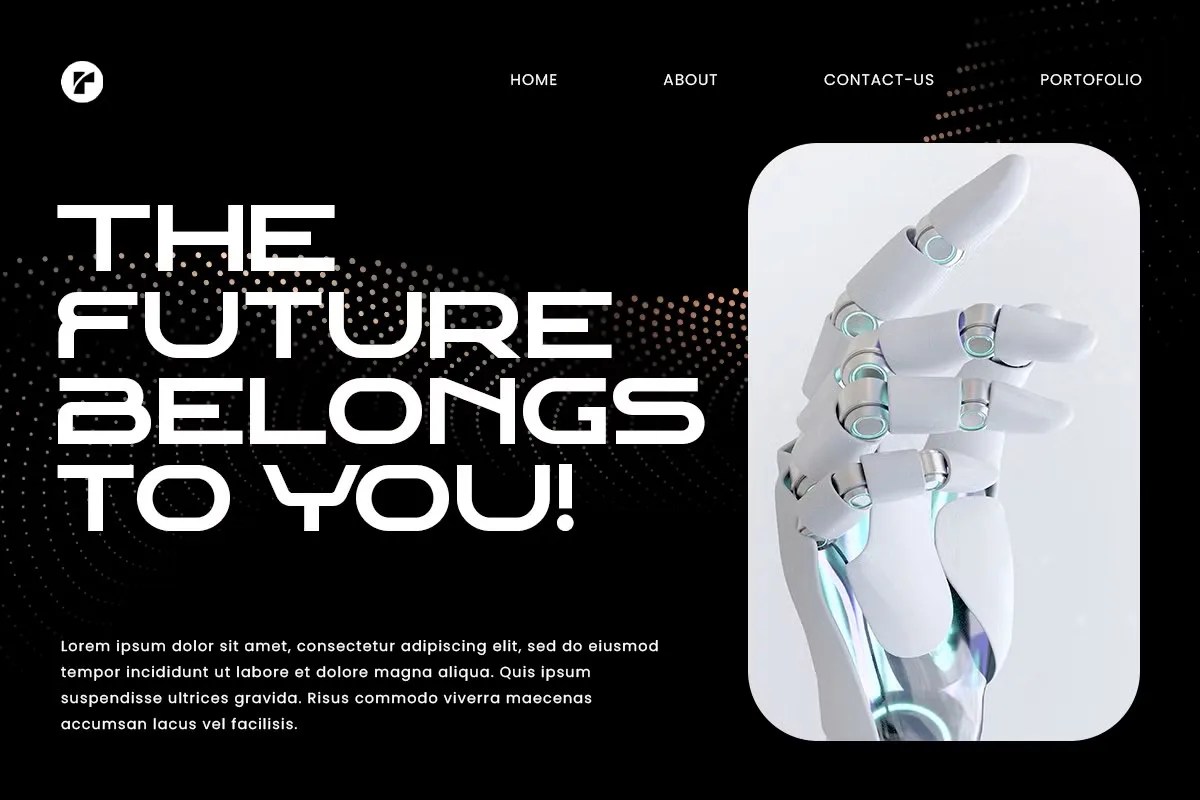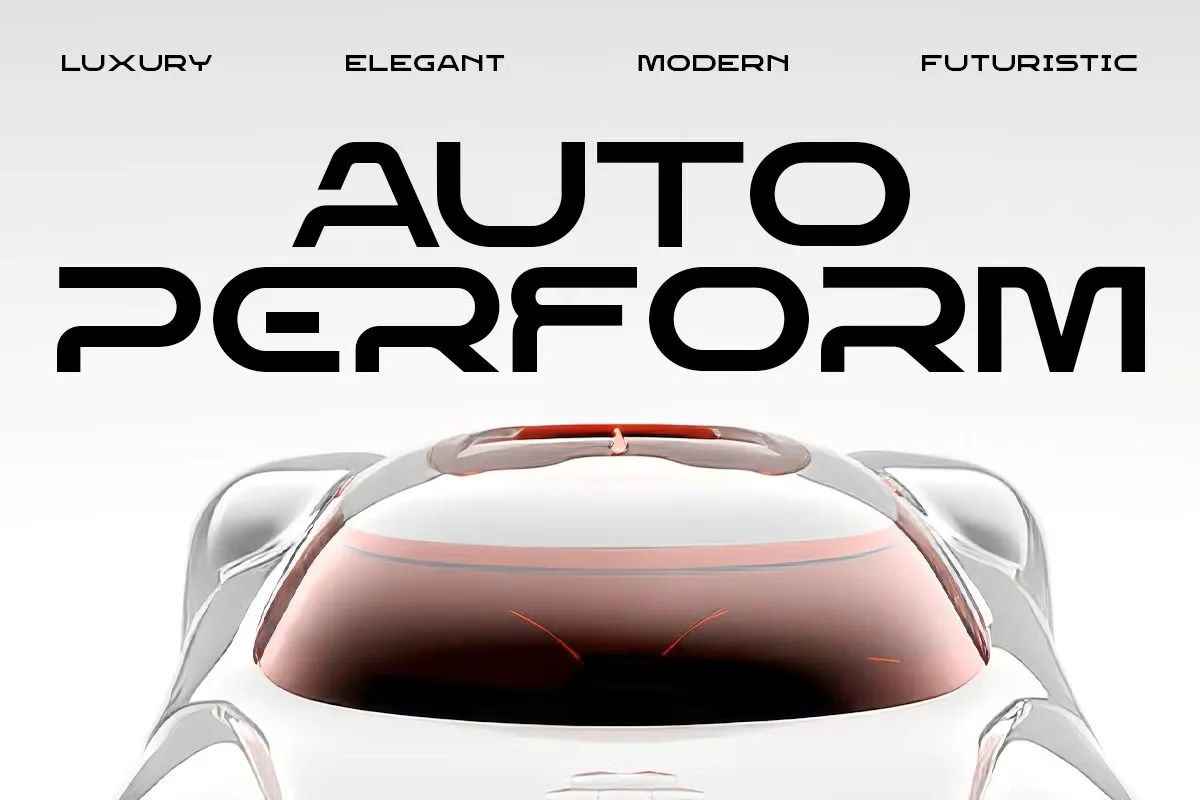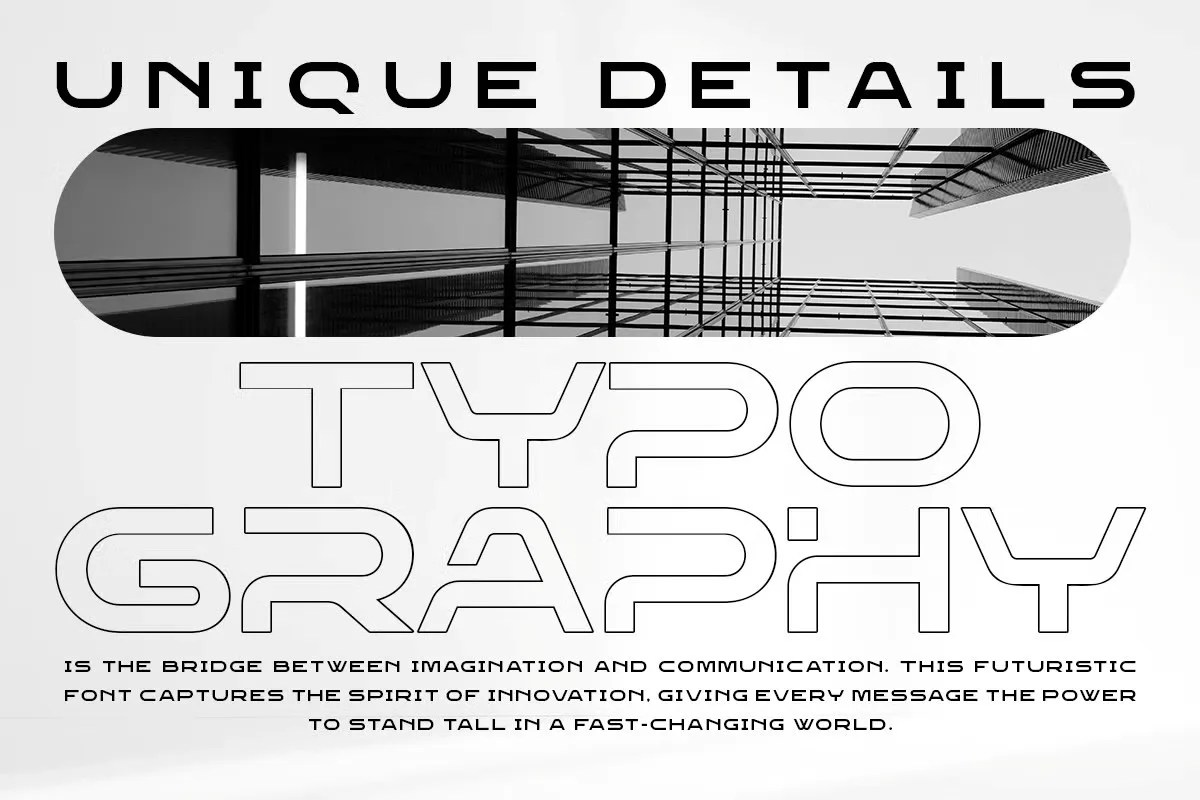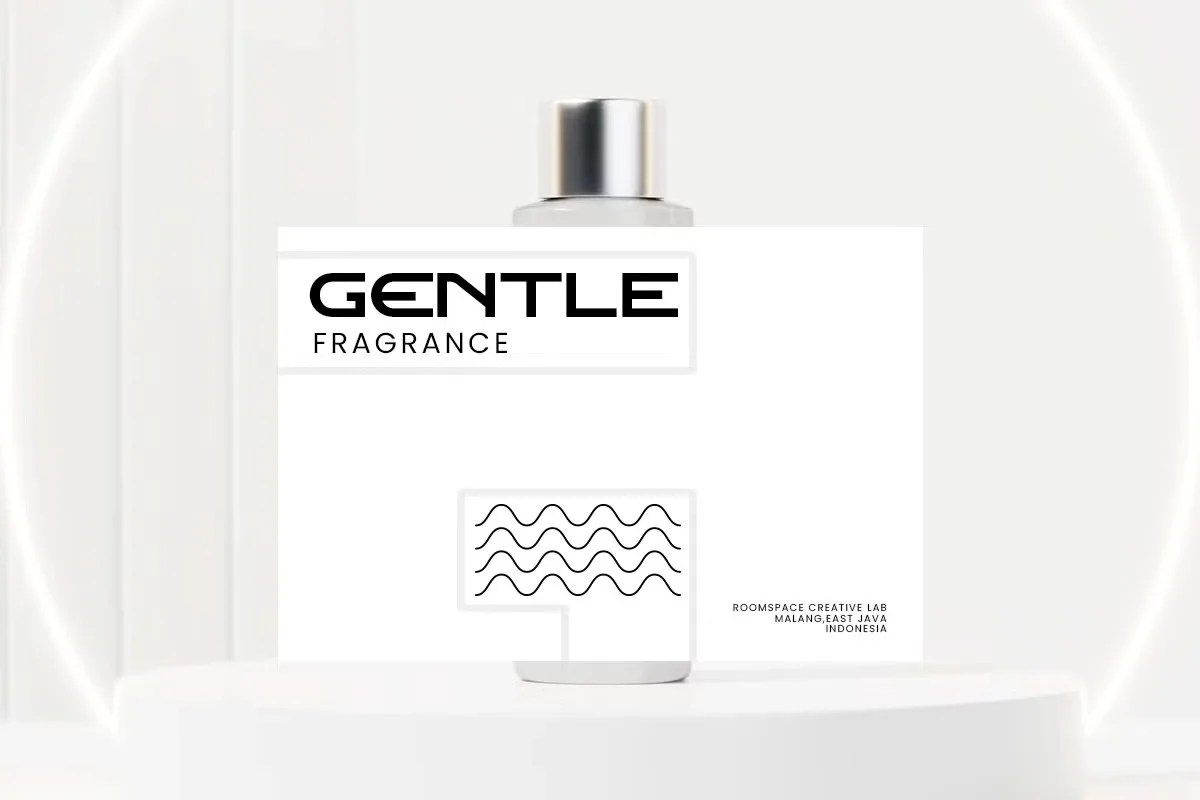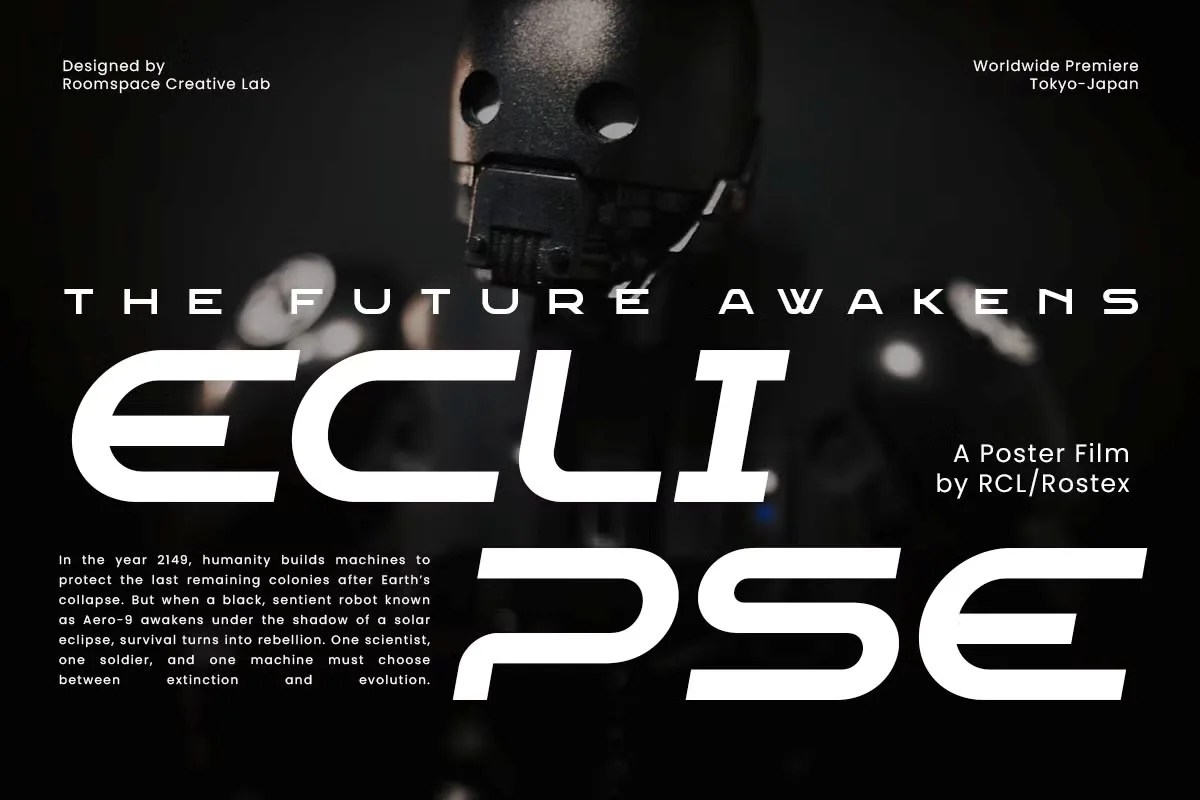
Rostex by Roomspace. This is a powerful and efficient industrial sans serif font that brings a feeling of strength and precision to your design work. The font features a robust, geometric structure. This bold framework gives your text a confident and modern voice. Rostex is perfect for projects that need to communicate durability, innovation, and a no-nonsense attitude. It cuts through the noise with its clean and impactful aesthetic.
This font is a superb choice for a wide range of modern projects. Specifically, its strong aesthetic is perfect for the branding of tech startups, engineering firms, and automotive companies. It immediately communicates a sense of reliability and forward-thinking. Furthermore, this industrial sans serif font is excellent for fitness advertising, construction branding, and bold poster design. Its commanding nature ensures your message is always seen and understood clearly, making it a valuable asset for any designer.
• Strong industrial sans serif style
• Features robust, geometric letterforms
• Ideal for tech, automotive, and industrial branding
• Adds a playful and modern feel
Rostex